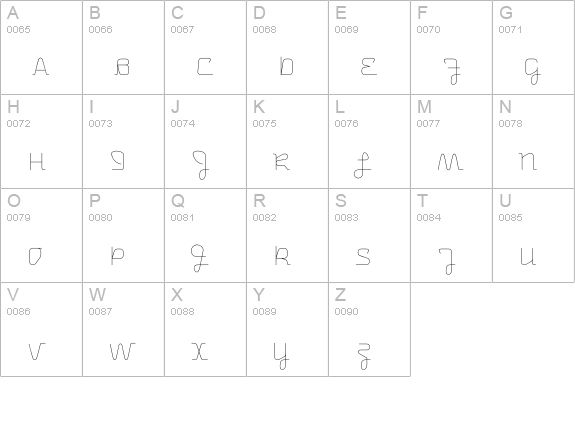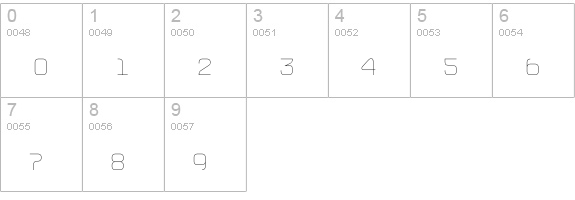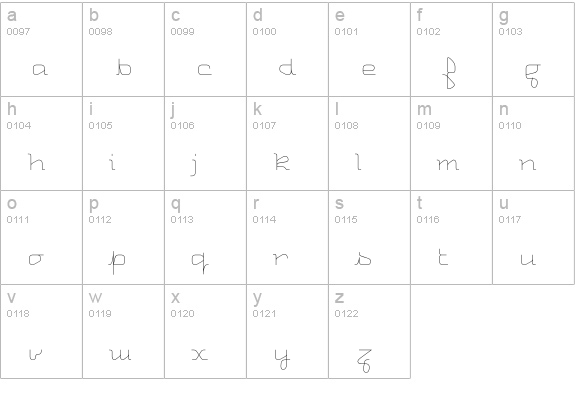
Uniglow-Ten Font Details
Uniglow-Ten is a dazzling display font that radiates a sense of modernity and elegance. Its sleek and futuristic design captivates the eye, making it the perfect choice for any project that demands attention and sophistication. This font boasts clean, sharp lines that create a harmonious balance between simplicity and intricacy. Each letter is meticulously crafted, resulting in a typeface that exudes professionalism and refinement. With its unique blend of geometric shapes and smooth curves, Uniglow-Ten adds a touch of contemporary flair to any design. One of the most remarkable aspects of Uniglow-Ten is that it is available for free download at FontsMarket.com. This means that designers, creatives, and enthusiasts alike can easily access and utilize this exceptional font without any cost. Such accessibility makes Uniglow-Ten a truly valuable asset in the world of typography. Whether you are working on a logo, branding project, website design, or any other creative endeavor, Uniglow-Ten is sure to elevate your work to new heights. Its versatility allows it to seamlessly adapt to various design styles and applications, making it a go-to choice for professionals and amateurs alike. Uniglow-Ten is more than just a font; it is a statement. Its contemporary and stylish appearance sets it apart from the rest, making a lasting impression on anyone who encounters it. With its sleek design and free availability, Uniglow-Ten is a must-have font for anyone seeking to add a touch of modern brilliance to their projects.